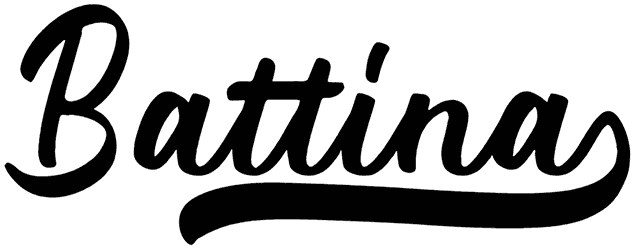
Battina Font
Battina is great for displaying banners and book covers because it reminds us of a period when fonts were less complicated. Parts of this vintage baseball font‘s long tail and flowing form have restored your confidence. It may provide a selection of options for making your typography more pleasant.